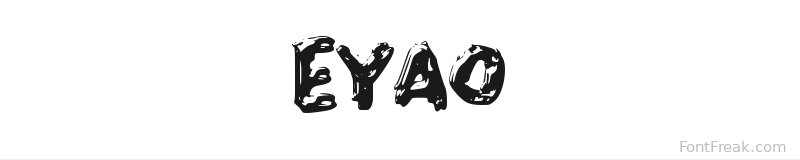
EYAO
The EYAO font, designed by Wahyu Eka Prasetya, is an engaging display typeface that showcases a unique blend of artistic flair and modern aesthetics. This font falls into the category of decorative typefaces, characterized by its playful and expressive letterforms. With a distinctively bold stroke weight and an uneven texture, EYAO provides a handcrafted feel that stands out in various design contexts. The uneven spacing between letters adds to its charm, making it visually dynamic and eye-catching.
EYAO is particularly well-suited for a range of creative applications. It can elevate wedding invitations with its whimsical style, create striking headlines for movie posters, and add personality to restaurant menus. Additionally, its artistic quality makes it a great choice for branding projects, particularly for businesses in the arts, crafts, or food industries. Content creators looking to make their titles or social media graphics pop will also find this font to be a valuable asset.
What truly sets the EYAO font apart is its ability to convey emotion and character through typography. Whether used in digital or print formats, this font captures attention and invites engagement, making it an excellent choice for designers aiming to make a memorable impact. For those interested, the EYAO font free download is readily accessible, allowing you to incorporate this distinctive typeface into your next project effortlessly.